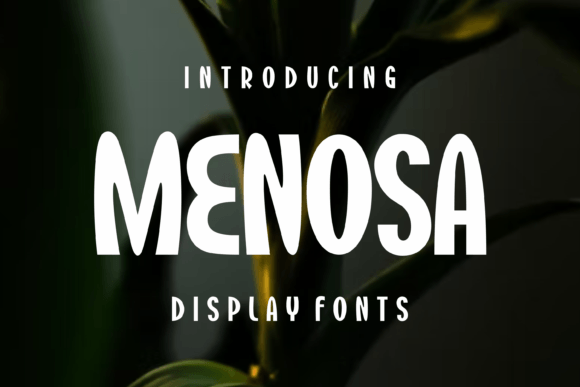
Embark on a typographic journey with Menosa, the captivating display font crafted by lelevien, a visionary in the world of digital artistry. This modern masterpiece is not just a font; it's an experience that transforms your words into works of art. As a member of the display font family, Menosa commands attention with its bold presence, making it the perfect choice for creating stunning headlines, eye-catching logos, and captivating social media posts.
Unleash your creativity with Menosa, a font that knows no bounds. Its versatility allows you to effortlessly elevate any project, from wedding invitations that exude timeless elegance to business presentations that demand professionalism. Let Menosa be your secret weapon in crafting designs that leave a lasting impression.
With Menosa, every word carries weight and every letter dances with grace. Its carefully crafted curves and sharp edges create a visual symphony that captivates the eyes and stirs the emotions. Engage your audience with messages that resonate, leaving them mesmerized by the beauty of your words.
Menosa is more than just a font; it's a gateway to a world where words come alive. Its unique character adds a touch of sophistication and charm to any project, making it the perfect choice for those who seek to make a statement. Whether you're a seasoned designer or just starting your creative journey, Menosa is your key to unlocking typographic brilliance.